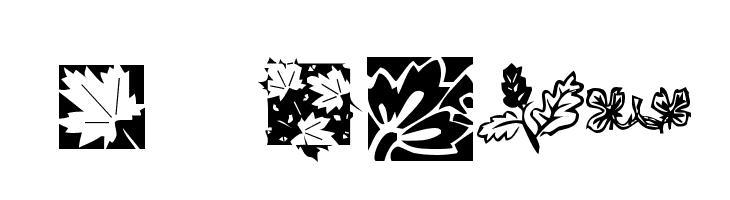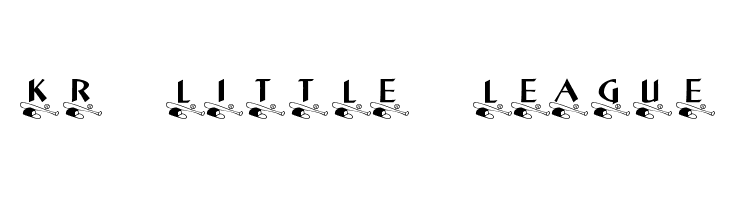
A decorative collection of leaf-themed symbols and icons.
A playful, angel-themed font with bold, cartoonish characters.
Cartoon animal dingbat font with playful, hand-drawn style.
A playful, handwritten-style font resembling pinned notes.
Cartoonish Halloween-themed dingbat illustrations in a playful style.
A bold, playful font with robot-themed decorative elements.
A playful, lime-themed decorative font with bold, capitalized letters.
A decorative font with bold letters framed by historical figure illustrations.
A playful font with bee illustrations integrated into each character, perfect for fun and engaging projects.
A playful, baseball-themed font with bold, stylized letters and sporty motifs.